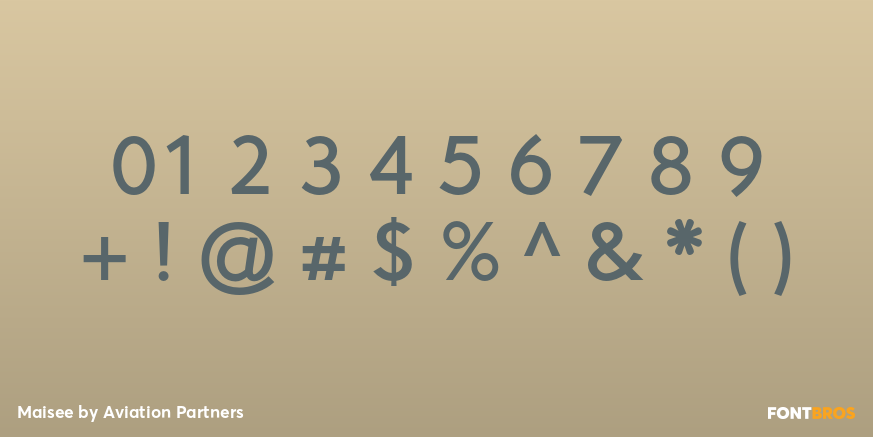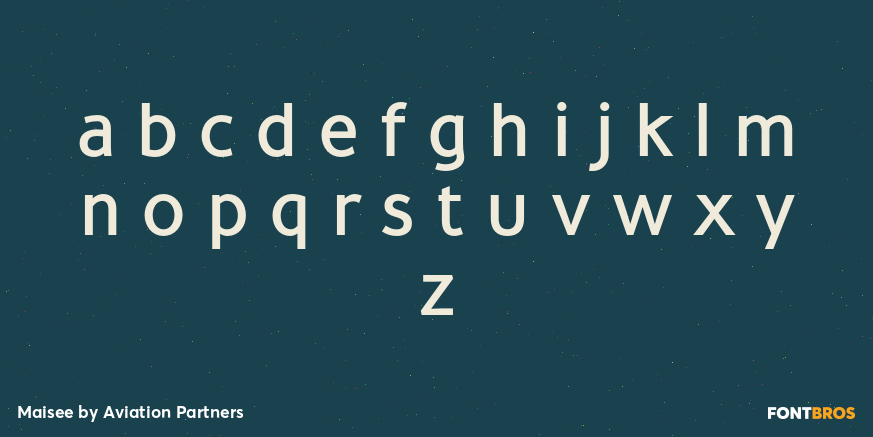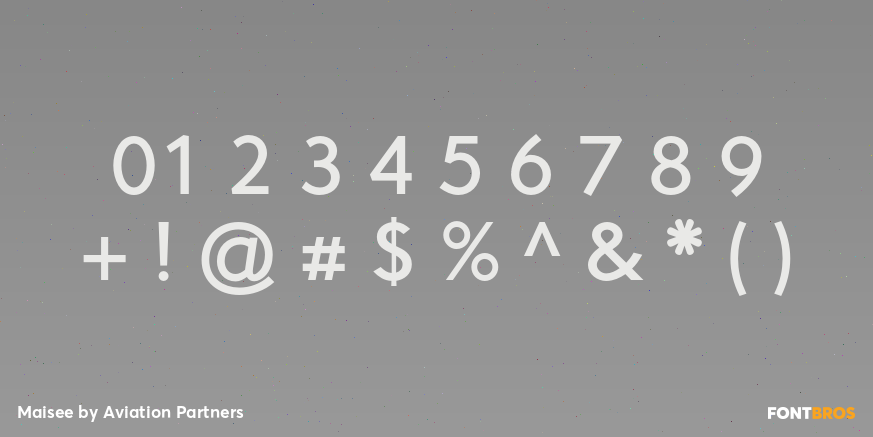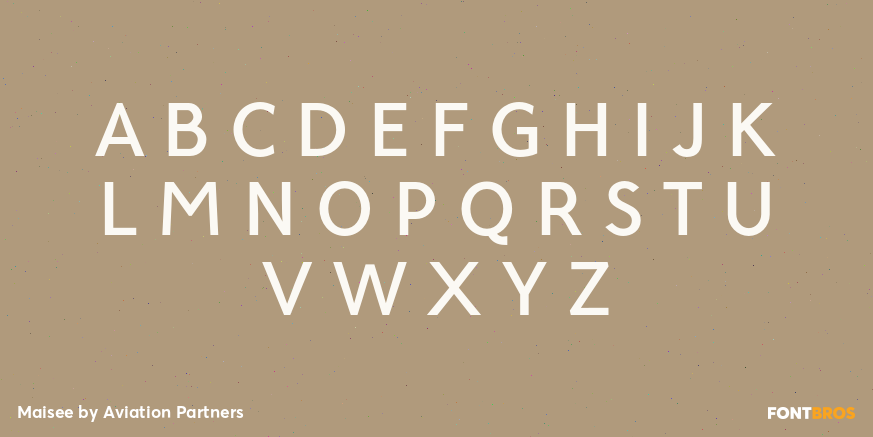
Maisee
Font Family by Aviation Partners
Buy NowMaisee is a smiling sans serif face for many occasions and has proved itself in art catalogues, wine lists, websites and many other situations.
Full of retro influences, it sits elegantly on today's page or screen.
A useful modern font which doesn't sacrifice form and charm for space, Maisee is characterised by a generous x-height and a roundness of form based on gentle spirals. Numerals and math characters are tabular from ExtraLight through to SemiBold.